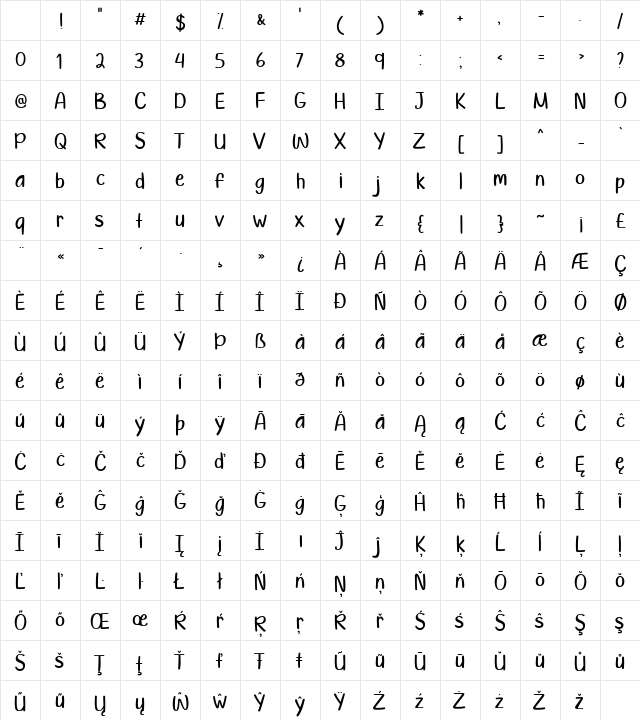
Complete Random Wednesday Regular glyph index. Displaying only characters natively supported by Random Wednesday Regular font.
Random Wednesday is a composed and adaptable typeface that performs quietly and consistently across a wide range of design contexts.